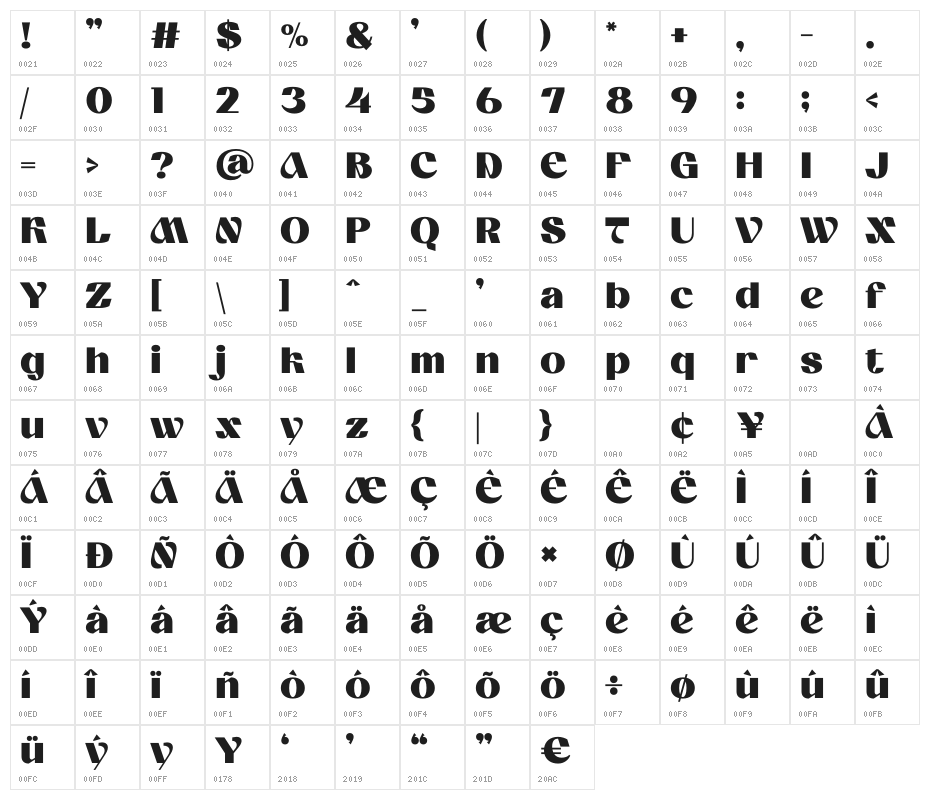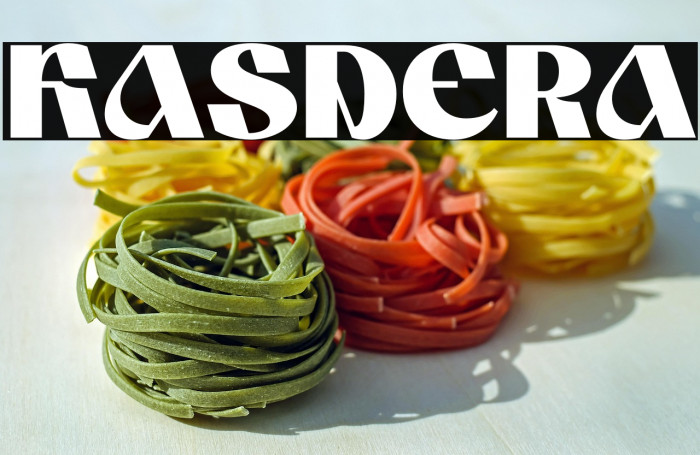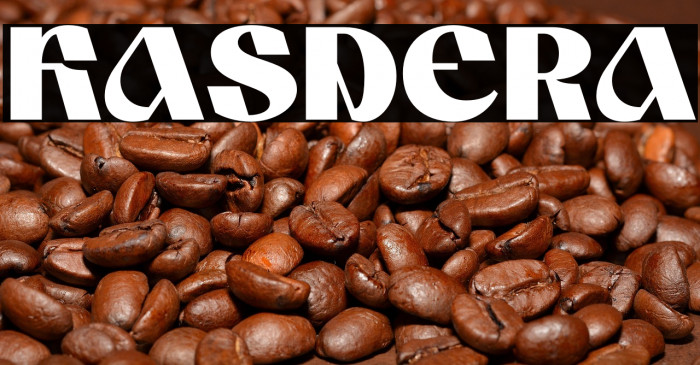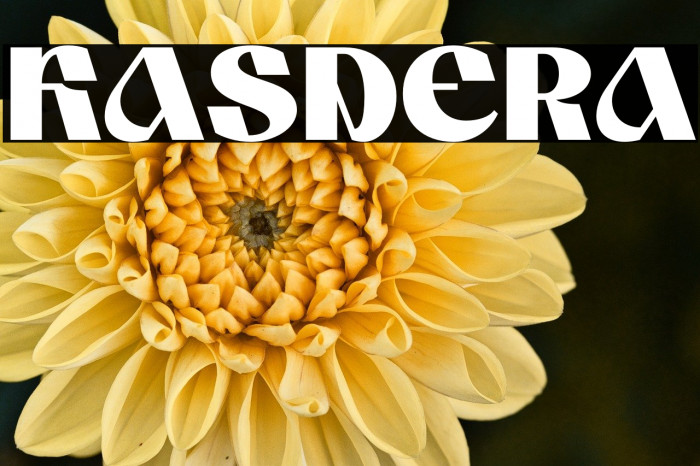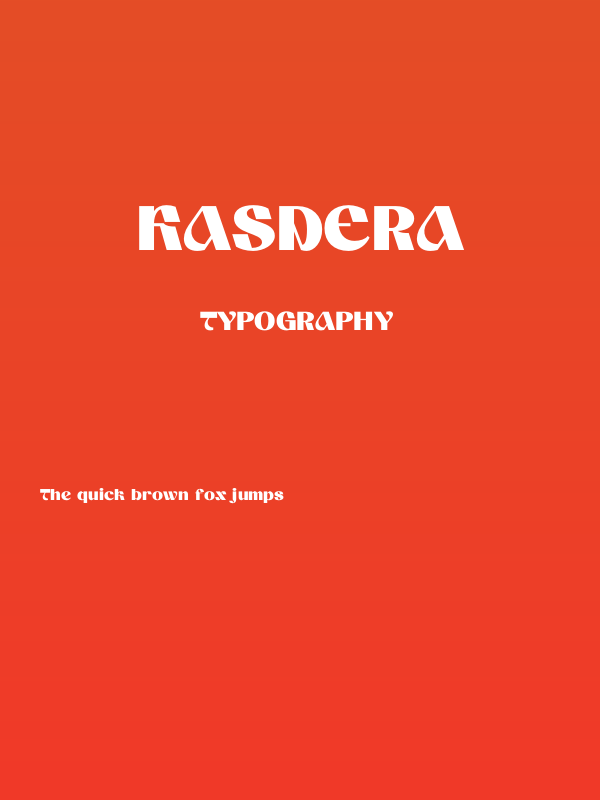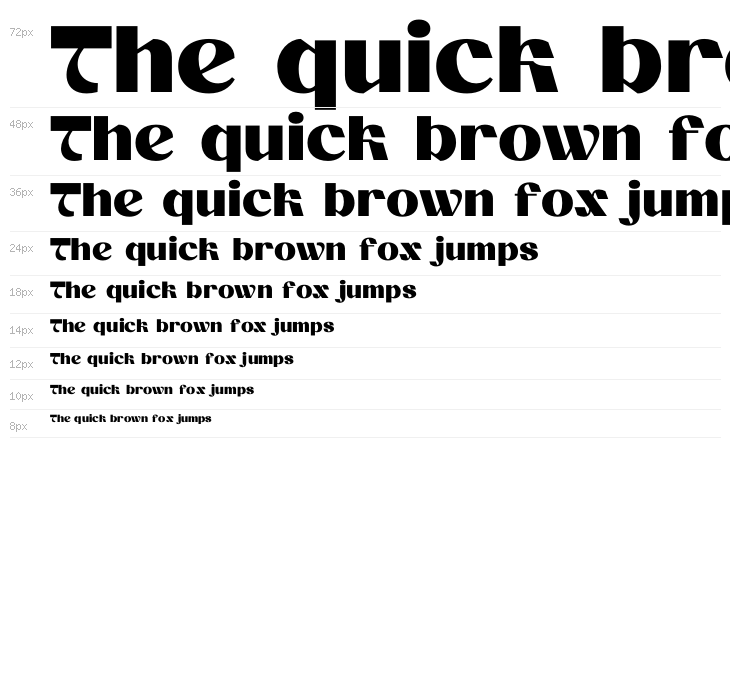
KASDERA Font
KASDERA Description
This font features a bold and striking design with a modern twist. The characters are crafted with sharp angles and clean lines, giving them a geometric and futuristic appearance. The uppercase letters are particularly distinctive, with unique cuts and slants that create a dynamic visual effect. The lowercase letters maintain a consistent style, complementing the uppercase with a slightly softer approach. Numbers and special characters follow the same design principles, ensuring a cohesive look across all elements. The font's boldness and unique style make it ideal for projects that require a strong visual impact.
| Proposed Projects | Ideal for branding, headlines, posters, and any design requiring a strong visual impact. |